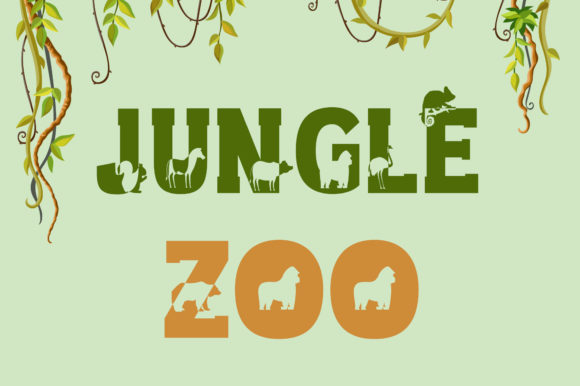
Imagine unleashing the wonder of the wilderness right into your digital designs with Jungle Zoo Font – a stunning and captivating decorative font designed to bring joyous moments to all your projects. Step into a world where creativity knows no bounds, where words transform into a vivacious spectacle for any project that seeks to enchant and inspire.
With its bold strokes and playful charm, Jungle Zoo Font ignites the imagination and captures the essence of youthful adventures. Each letter dances to the rhythm of a wild narrative, evoking the magic of nature's untamed beauty and inviting you on a visual safari. From children's invitations to school projects, this font transports you to a realm where learning becomes an enchanting journey like no other.
Crafted by the esteemed Vladimir Carrer, Jungle Zoo Font is a masterpiece of digital artistry – a font born from the harmonious blend of boldness and uniqueness. Its playful curves and distinct details paint a picture of wild wonders, each letter brimming with character and personality. As you let your creativity run wild, this font becomes your trusted companion, weaving tales that spark the imagination and leave an unforgettable impression upon your audience.
With Jungle Zoo Font, you're not merely typing words – you're composing a symphony of visual delight that captivates the senses. Whether you're creating posters, greeting cards, website designs, or other enchanting projects, this font breathes life into your creations, making them stand out as unique and truly extraordinary. Unleash the spirit of adventure, let the wild beauty of Jungle Zoo Font take hold, and watch as your designs transform into enchanting tales that dance on the screen.
Immerse yourself in the untamed wonder of Jungle Zoo Font. Let its bold strokes and playful curves awaken the wild soul within your designs. Each letter is a stroke of genius, combining boldness and uniqueness in a way that only nature can inspire. Embrace the beauty of the wilderness and watch as your creative visions take flight, soaring high above the ordinary.